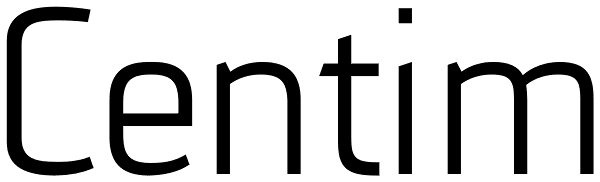
Centim
Centim is contemporary sans with sharp top endings of stems that give a bit technical charm to typeface. With a squarish look, it can be used widely in all modern publications or become a part of an corporate identity. In smaller sizes, Centim...